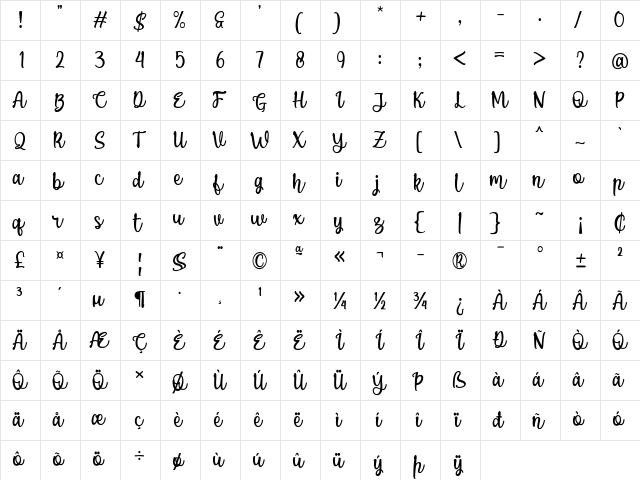
Puspa Anisya Script Regular
| Foundry | 7NTypes |
| Designer | Dreamink; Dani; Situjuh Nazara |
Design Context for Puspa Anisya Script Typeface
Puspa Anisya Script flows with the natural rhythm of handwritten lettering, making it ideal for designs that call for warmth and personal expression.
Font Pairing: Combine Puspa Anisya Script with a simple geometric sans for maximum contrast — the tension between flowing curves and clean structure is a classic typographic pairing.